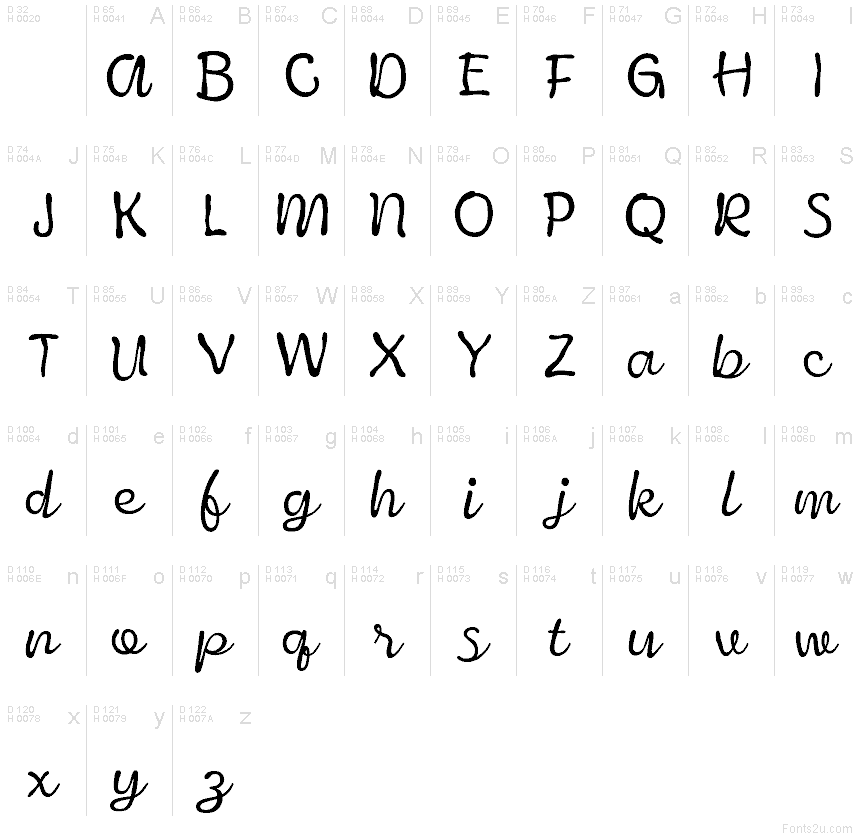
CS Renita Regular Demo
CS Renita font by Craft Supply Co. is a free brush script font that solves a classic dilemma: you want hand‑painted warmth without the messy bulk. Its inky, slightly textured strokes keep a steady rhythm, with rounded terminals and open counters that stay legible at mid sizes. The connections are smooth and confident, giving headlines an easy, breezy flow that feels personal but still polished.
This free font shines on bakery logos, beauty packaging, café menus, wedding suites, Instagram quotes, and hangtags. Using CS Renita gives copy a friendly lift without sacrificing readability, thanks to its even contrast and gentle bounce. Try pairing it with a clean geometric sans for body text, and give CS Renita a touch more tracking when used in all‑caps accents.